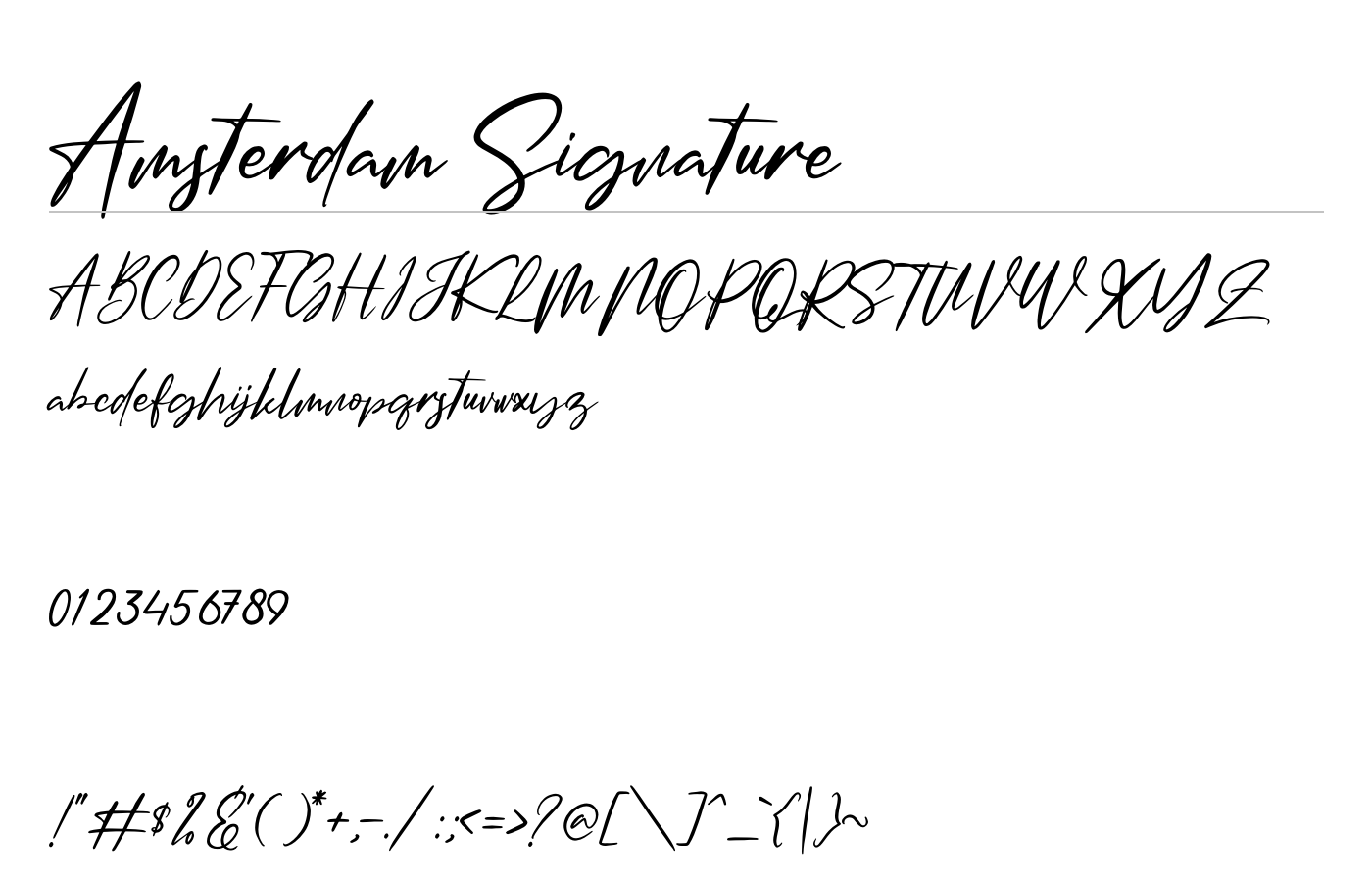
Amsterdam Signature Font is a delicate, elegant script typeface that mimics natural handwriting with smooth, flowing strokes and a slender, slightly condensed form. Its fine lines and tall x-height give it a modern, stylish feel, making it perfect for branding, invitations, and any design seeking a personal, sophisticated touch. This font works well in logos, headlines, and packaging where a chic, handcrafted aesthetic is desired.
Amsterdam Signature Font
About Amsterdam Signature Font
| Font family | Amsterdam Signature Font |